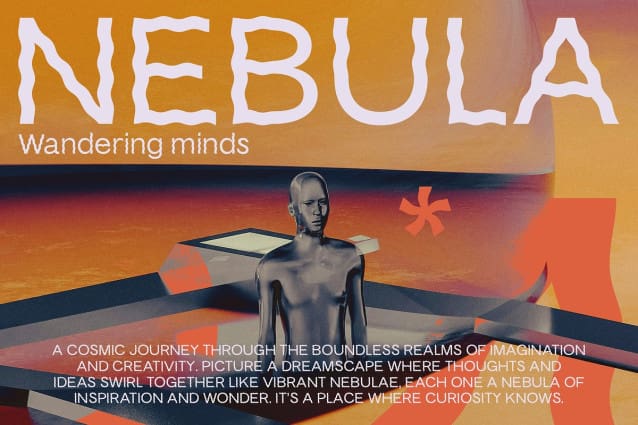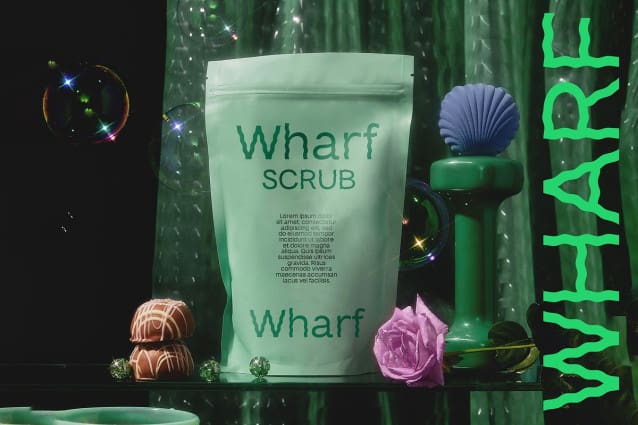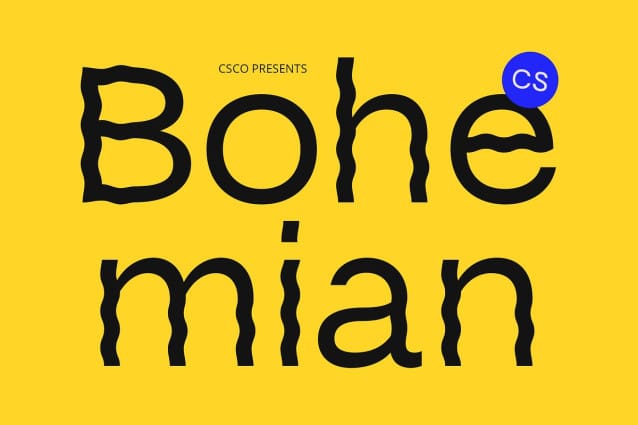
CS Bohemian Font
CS Bohemian Font is a modern sans-serif font that merges sleek, contemporary design with striking psychedelic shapes. Featuring letterforms adorned with dynamic curves, twists, and vibrant visual effects, this font creates a bold and experimental look. The absence of traditional serifs emphasizes its clean, modern style while the psychedelic elements infuse it with a unique, futuristic edge.
Dynamic Visual Effects for a Bold Impression The psychedelic design of CS Bohemian introduces energetic and unconventional forms that captivate the eye. Its twisting shapes and vibrant accents offer a creative twist on standard sans-serif fonts, making it ideal for projects that aim to stand out and make a memorable impact. This font excels in creating a striking and imaginative visual experience.
Ideal for Creative and Futuristic Designs CS Bohemian is perfect for any design that requires a vibrant and distinctive appearance. Whether for promotional materials, event posters, or branding, this font’s blend of modern simplicity and psychedelic flair ensures a fresh and engaging look. It’s a great choice for projects that seek to convey a sense of creativity and forward-thinking.